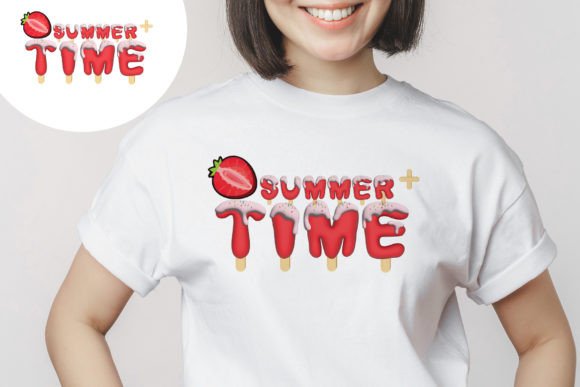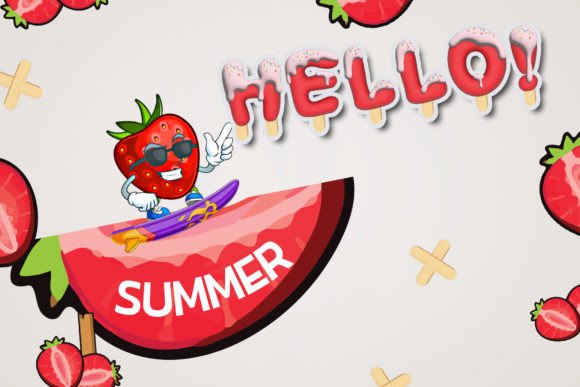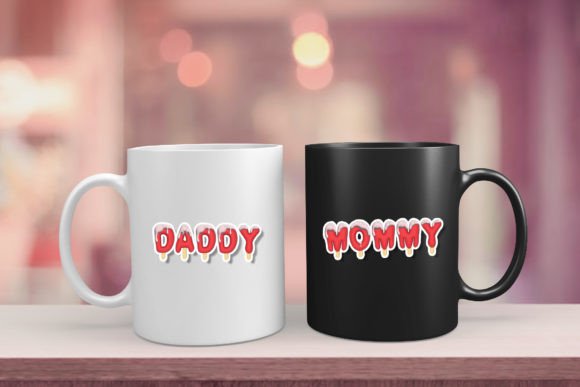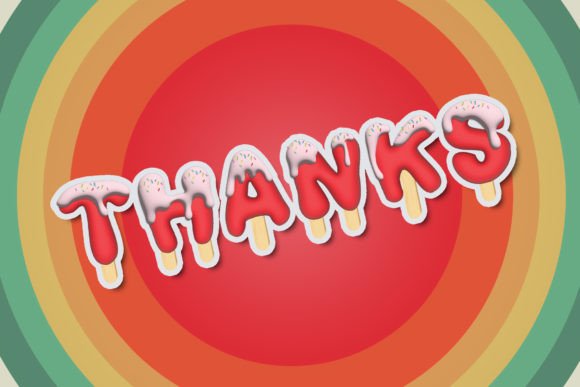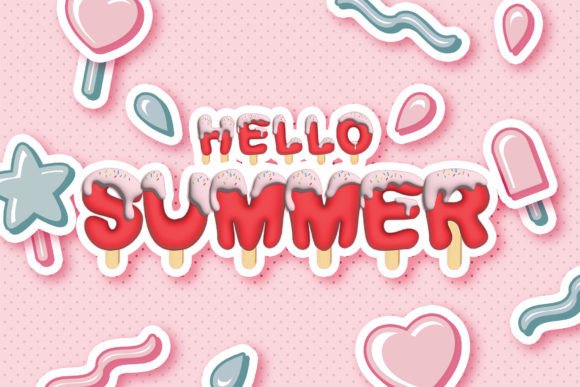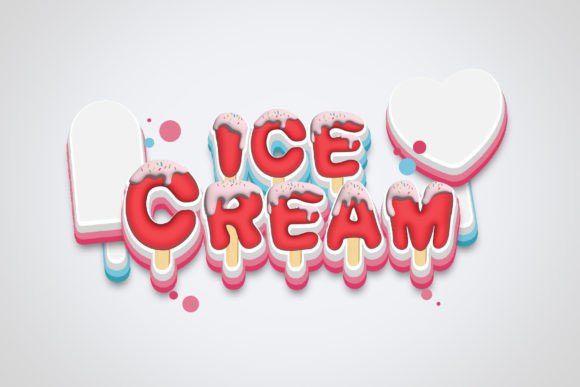
A Scoop of Creativity: Introducing the Ice Cream Font
Have you ever stared at a blank sheet of paper, searching for the perfect way to express your love and excitement to a friend or loved one? The blank page can be intimidating, but sometimes all it takes is a dash of creativity to bring your ideas to life. That’s where the Ice Cream Font comes in – a colorful, whimsical display font designed to look like a delicious scoop of ice cream. With its playful design, this font is perfect for creating beautiful invitation cards, stationery art, social media posts, and more.
As a designer, you know that the right font can make all the difference in bringing your creative vision to life. The Ice Cream Font is a valuable addition to any designer’s toolkit, offering a unique and eye-catching way to express yourself and make your designs stand out. Whether you’re working on a summer festival project or a simple greeting card, this font is sure to bring a smile to your face and delight your audience.
Ice Cream Font Key Features
- Size: The font contains 2 weights: Light and Regular, with 4 styles each (Regular, Italic, Bold, and Bold Italic)
- Unique Characteristics: The font features playful, whimsical, and hand-drawn elements, with a focus on ice cream-themed illustrations
Designer Review: Ice Cream Font
First off, I want to say that I was really excited to try out the “Ice Cream Font” for a new project. Here are some things that worked well for me: ✨
- Playful and fun vibe – the font definitely captures the carefree spirit of ice cream.
- Good for titles and headings – the font’s bold and playful style makes it perfect for grabbing attention.
- High-quality vector files – the font files were crisp and clear, making them easy to work with.
However, I did encounter some limitations: ⚠️
- May not be suitable for body text – the font’s playful style can be overwhelming for large blocks of text.
- Lack of flexibility in customization – I found it difficult to adjust the font’s size and spacing to fit my specific design needs.
- May not be suitable for formal or professional projects – the font’s lighthearted style may not be suitable for more serious or formal designs.
Overall, I would say that the “Ice Cream Font” is a great choice for projects that require a playful and fun vibe. While it may have some limitations, it’s definitely a unique and eye-catching option. Just be sure to use it judiciously and in the right context.
To get the most out of the Ice Cream Font, use it for playful and whimsical designs, such as children’s party invitations, food labels, or social media graphics. Experiment with different font sizes and colors to create visually appealing combinations.
Common use cases for the Ice Cream Font include branding, advertising, and packaging design. Its unique style makes it perfect for capturing attention and conveying a sense of fun and indulgence.